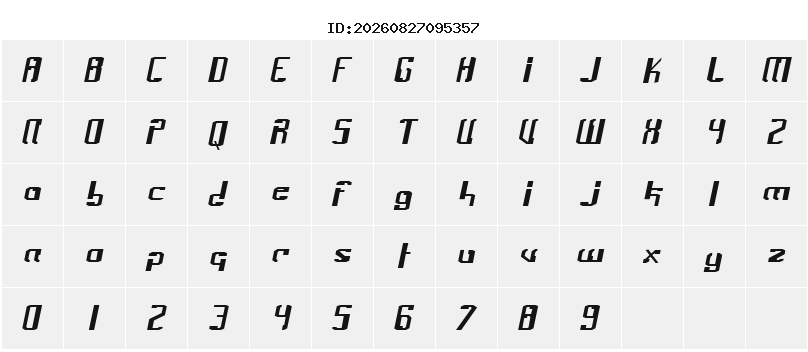
334-CAI978 Preview
About 334-CAI978.ttf
334-CAI978.ttf is a modern, elegant sans-serif font designed for ultimate readability and visual harmony. Perfect for branding, headlines, web design, and print materials.